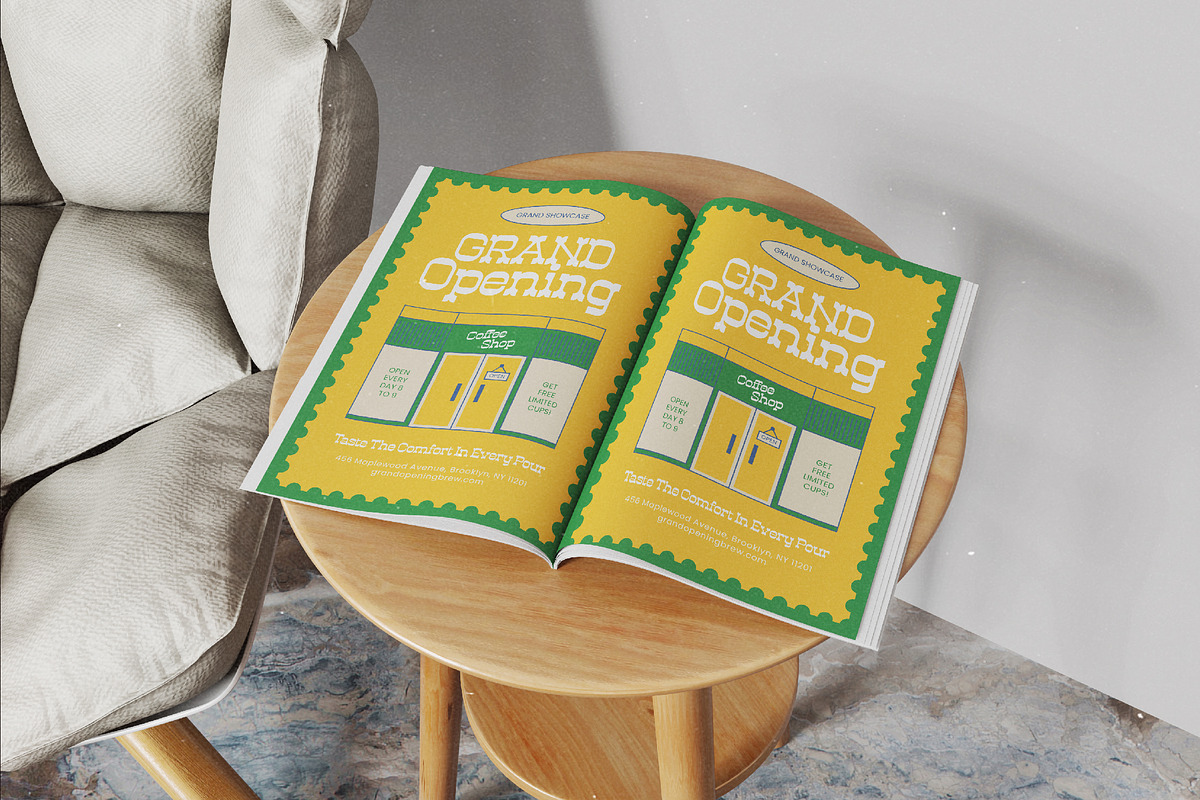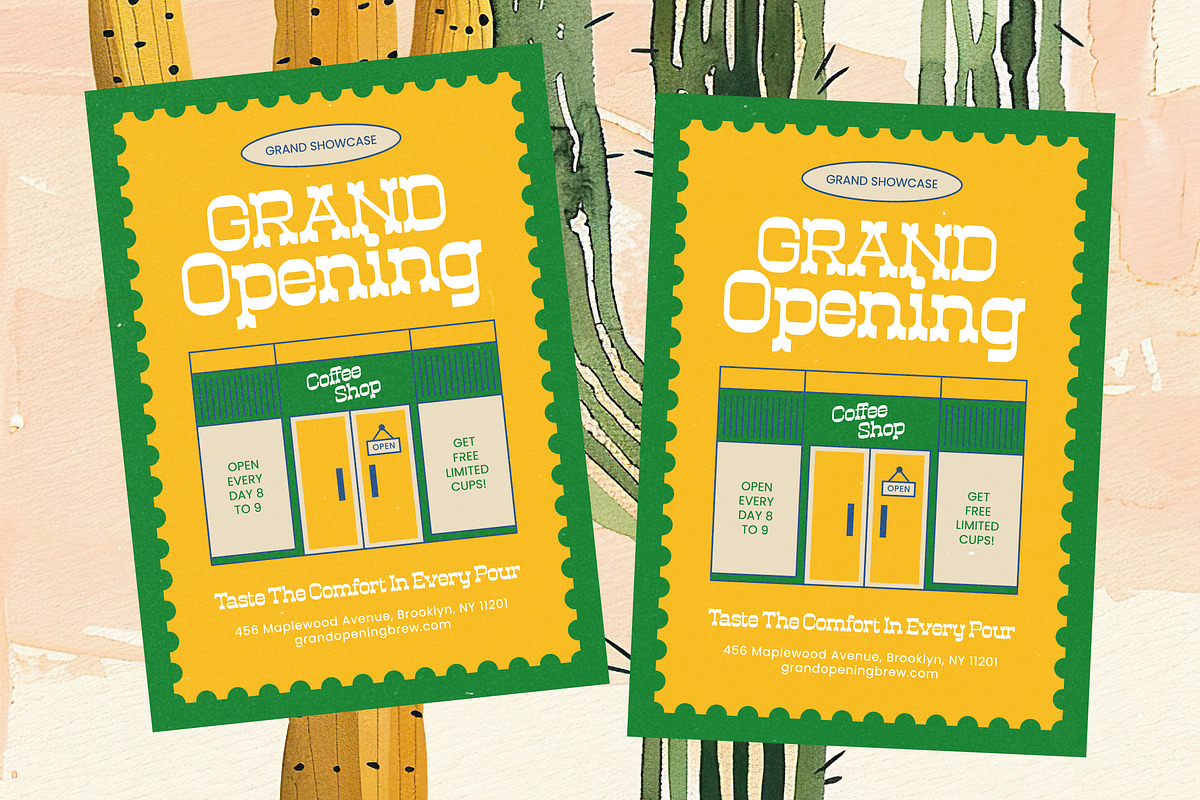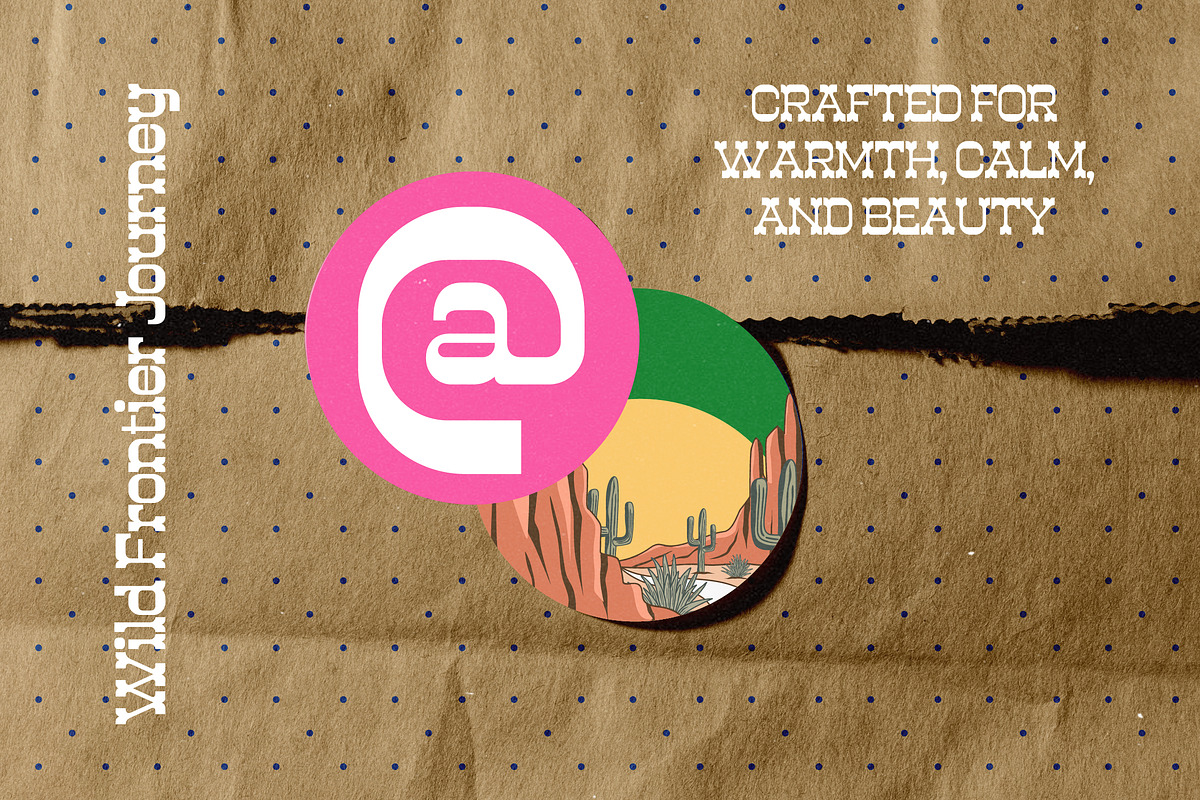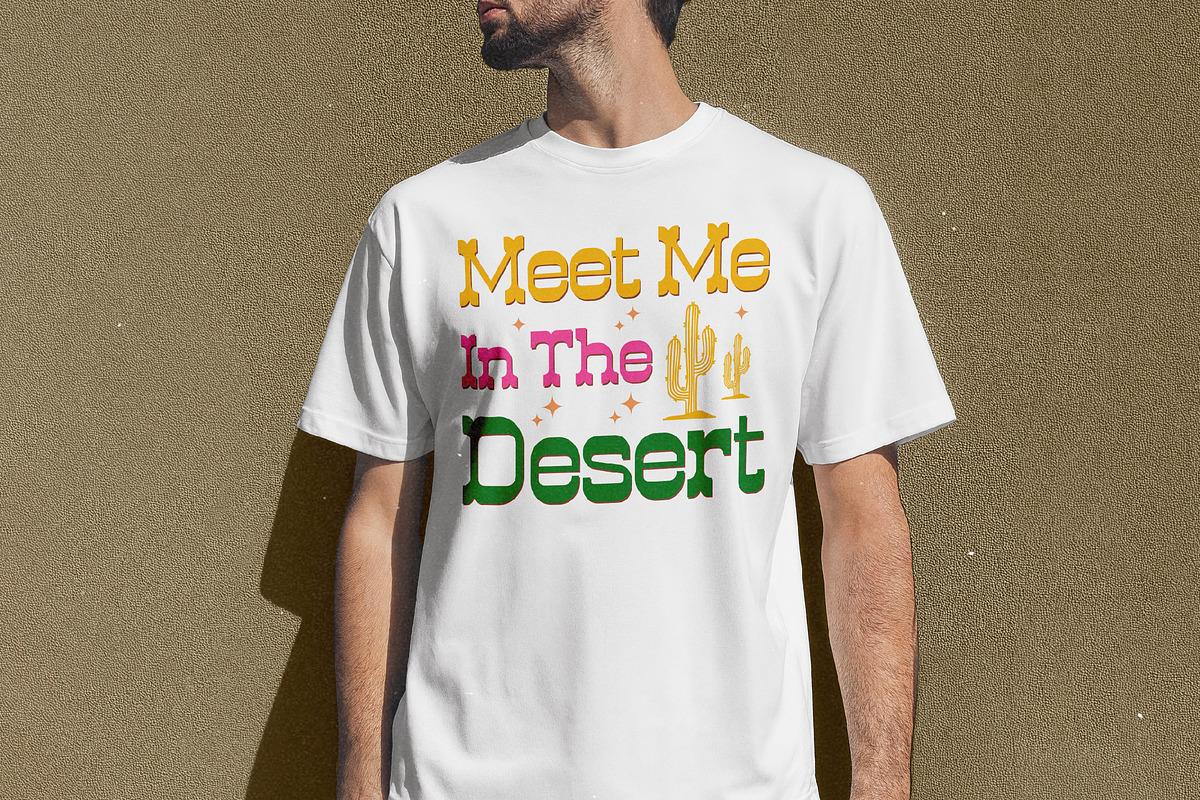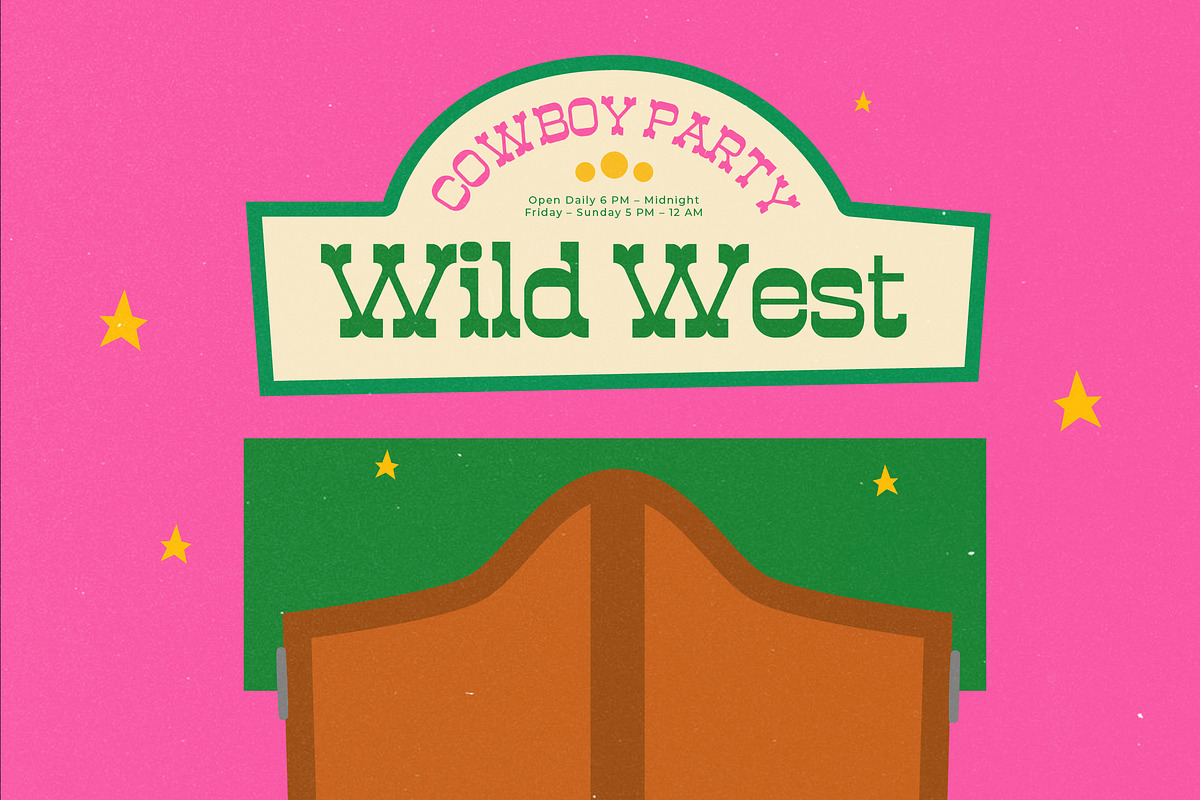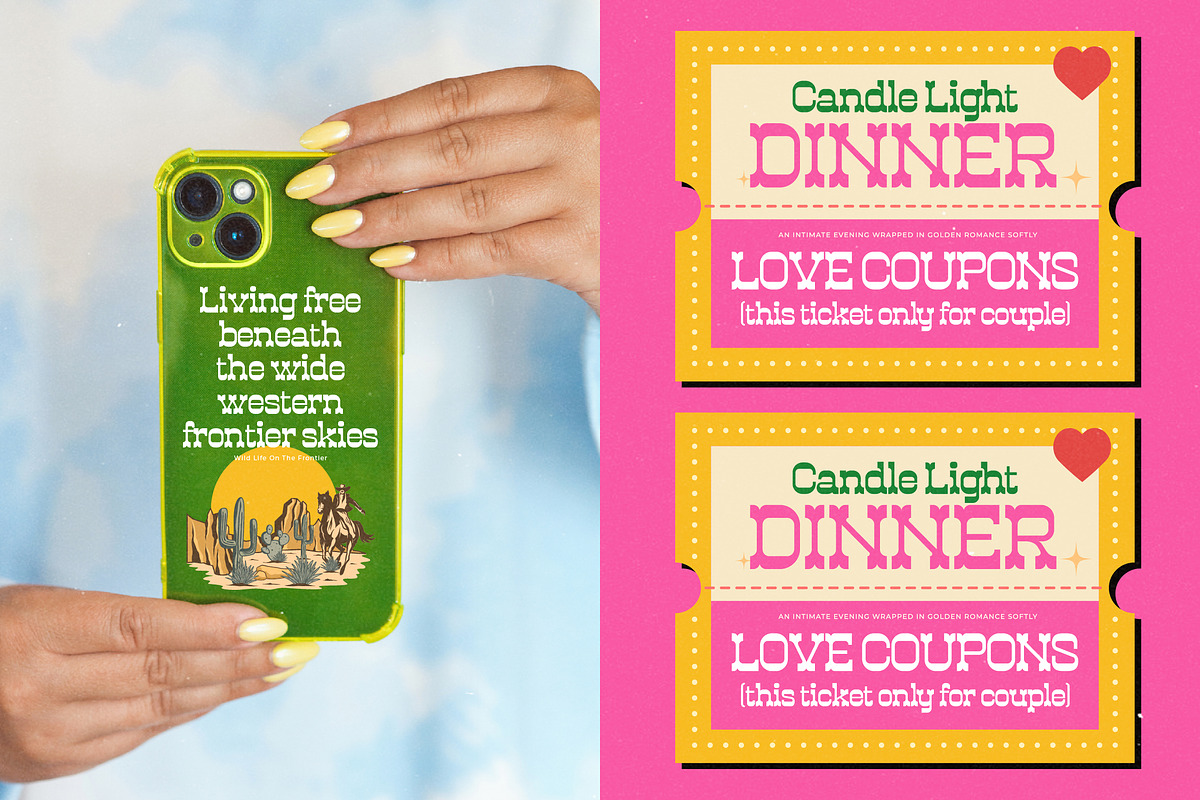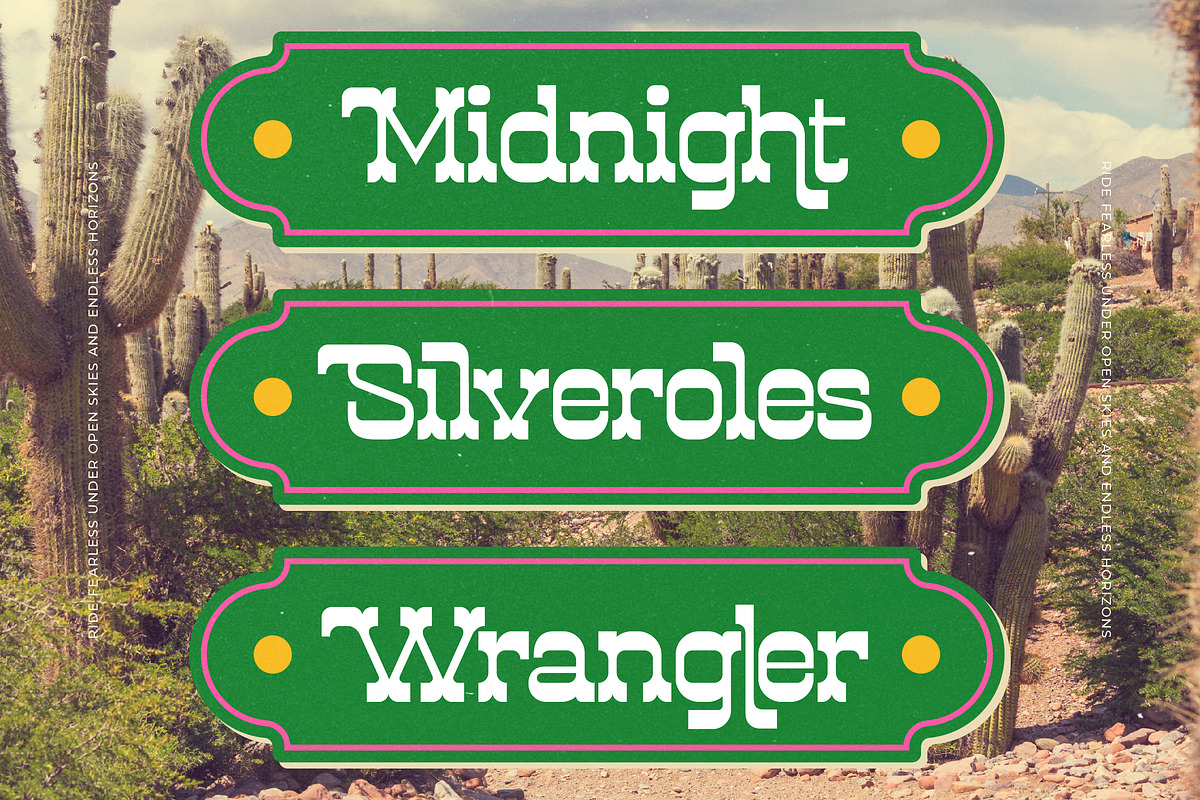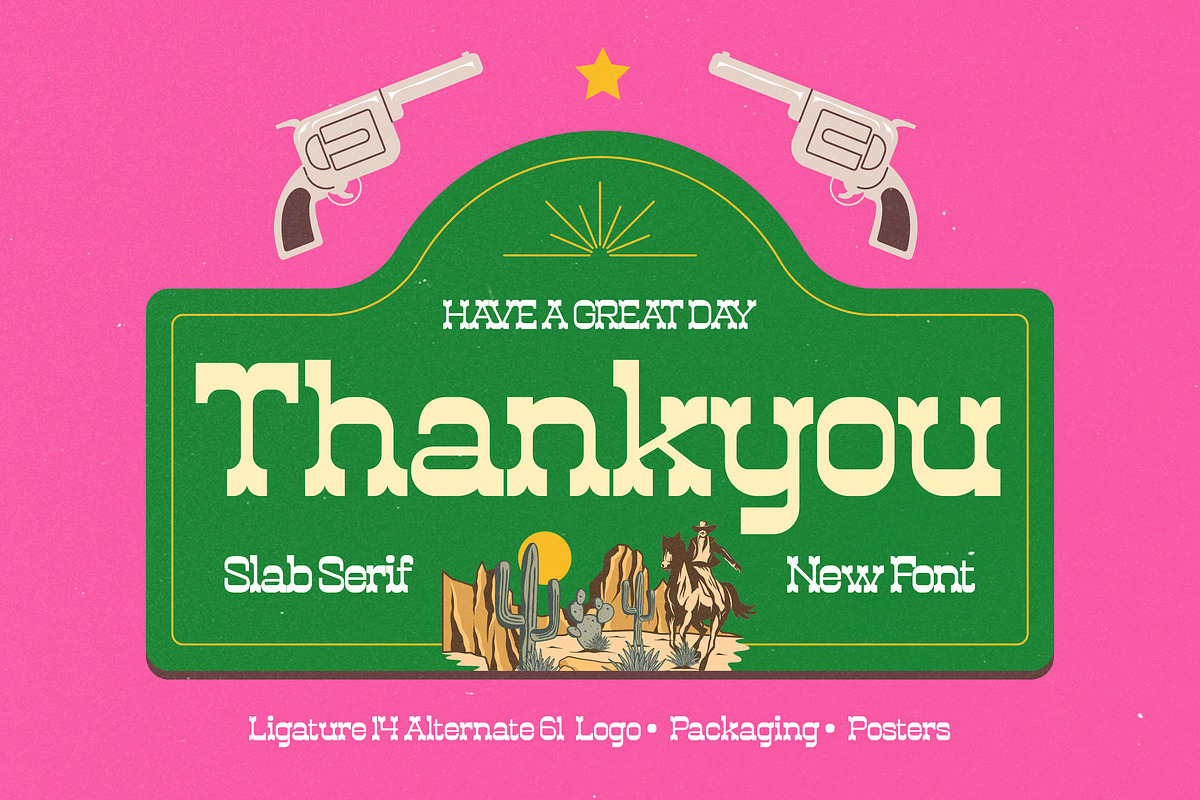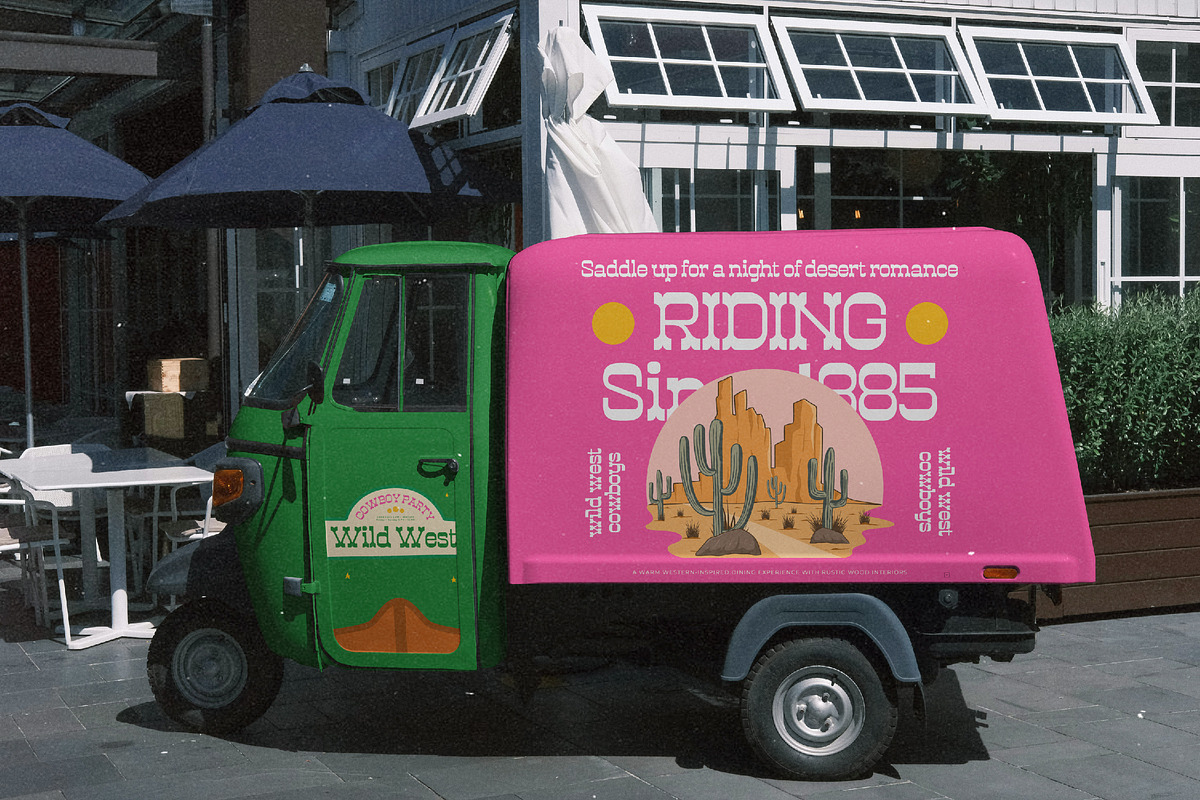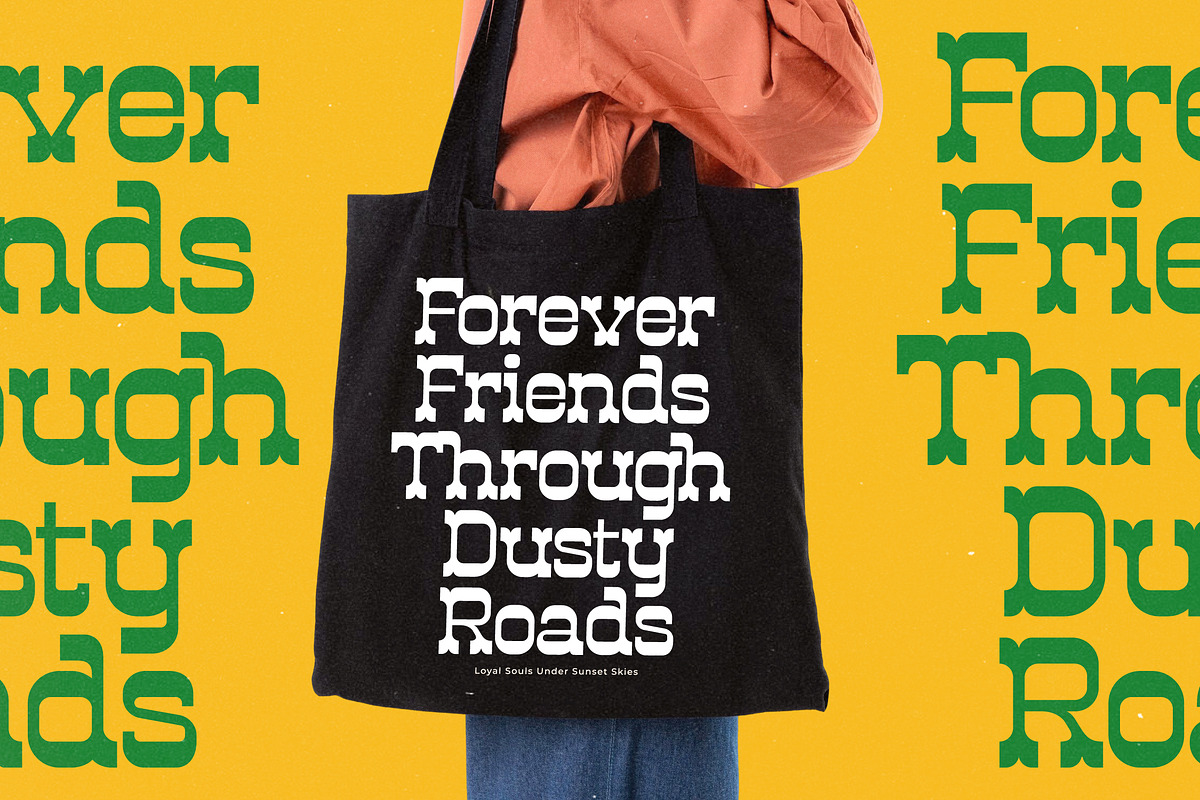
Westkind - Modern Western Slab Serif
Westkind - Modern Western Slab Serif , Saddle up for a typographic journey with Westkind, a typeface that captures the wild spirit of the frontier with a contemporary soul. This bold slab serif commands attention by blending rugged heritage aesthetics with a polished finish that defines modern excellence.
Drawing inspiration from the vast horizons of the American West and vintage national park signage, the design evokes the warmth of a desert sunset. It perfectly balances the grit of old-world wooden type with the smooth curves of current digital craftsmanship to create a unique visual narrative for any project.
This modern serif display is built for designers who demand luxury typography with a playful, rebellious edge. Its high-contrast serif elements ensure a powerful branding impact, making it an essential editorial font for creative projects that need to stand out from the crowd.
Perfectly aligned with the modern serif trend, this typeface taps into the growing demand for character-driven typography that feels both nostalgic and fresh. It is a standout choice among editorial display fonts, offering a distinctive and memorable voice in a sea of generic designs.
Whether you are crafting a standout logo design or developing a cohesive branding identity, this font delivers versatility across editorial layouts and product packaging. It adds a touch of rugged sophistication to wedding invitations and high-street fashion lookbooks alike.
The typeface is packed with creative potential, featuring unique ligatures and stylistic alternates to customize every word. Comprehensive multilingual support and a full set of international characters ensure your message resonates globally without technical limitations or swashes of inconsistency.